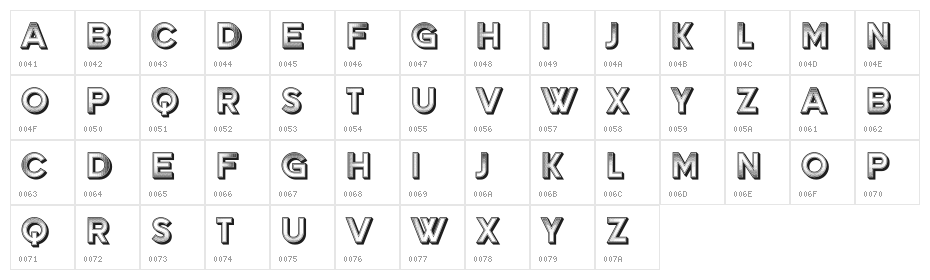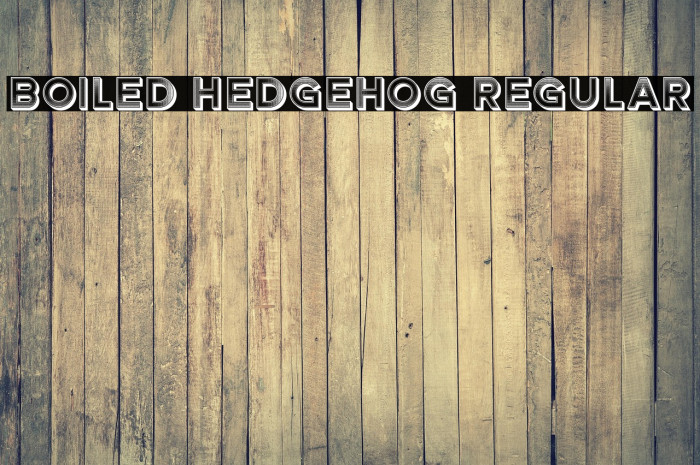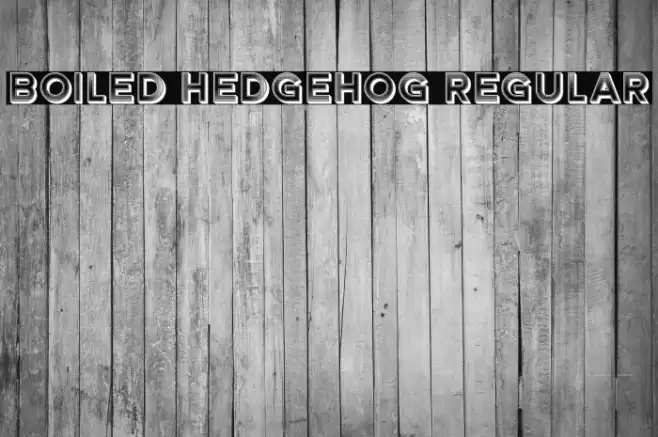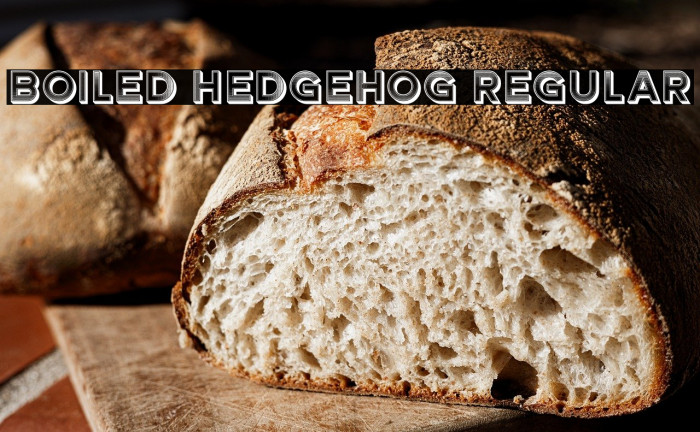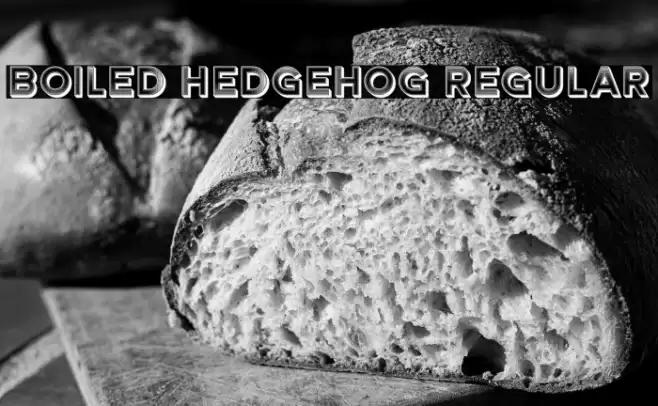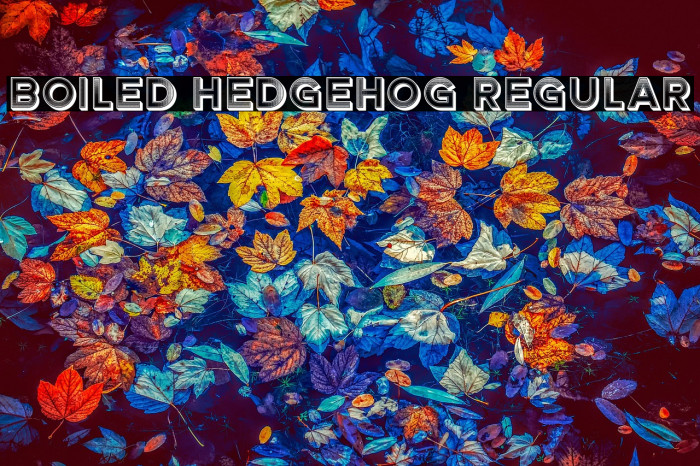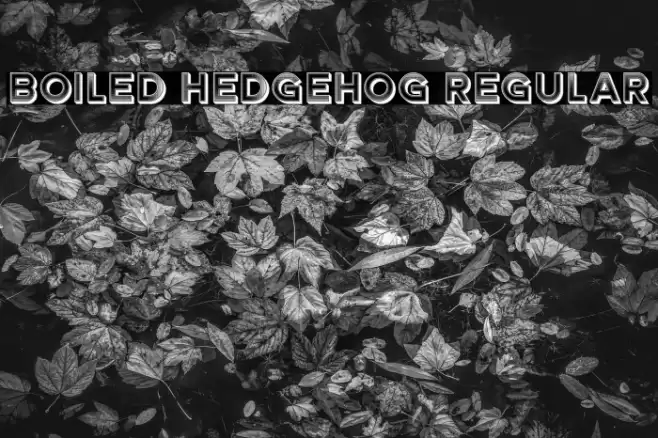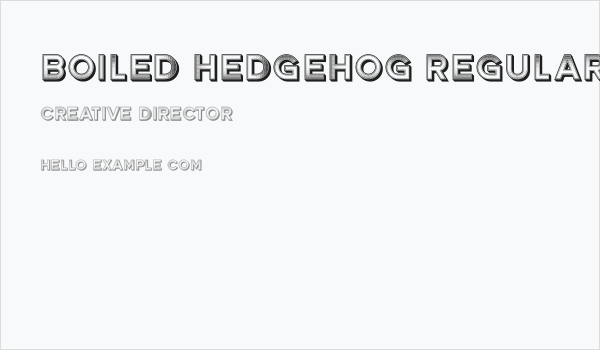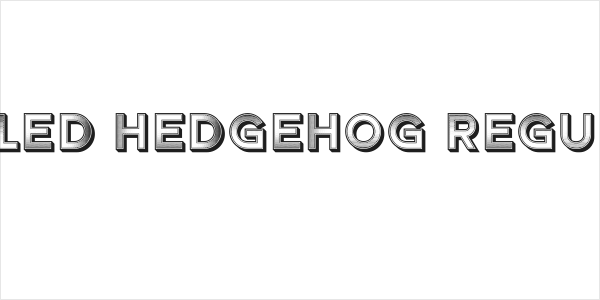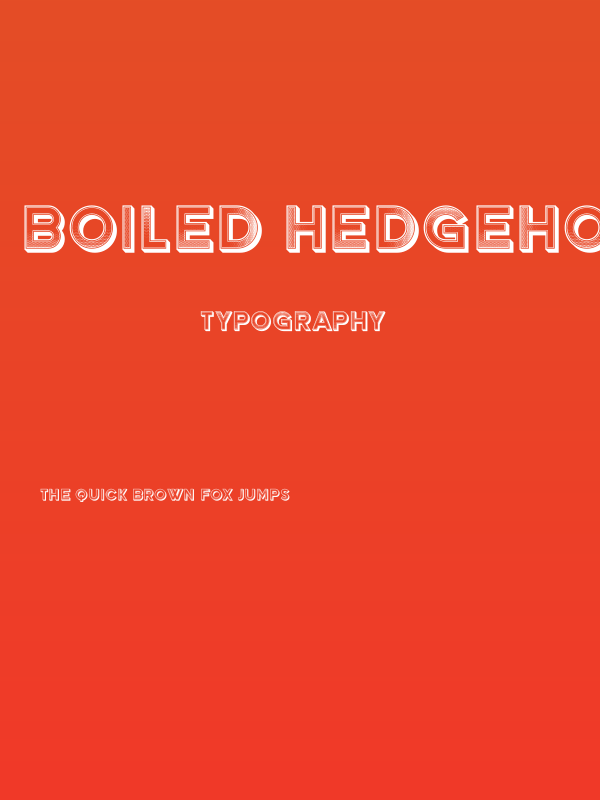
Boiled Hedgehog Regular Font
Boiled Hedgehog Regular Description
This font features a bold, decorative style with a three-dimensional effect created by a shadowed outline. The characters are uppercase and exhibit a strong geometric structure, giving them a modern and impactful appearance. The inner detailing adds texture and depth, enhancing the visual interest. The font's design is reminiscent of vintage signage, making it suitable for projects that require a bold statement. Its unique style is both eye-catching and memorable, ideal for creative and artistic applications.
| Proposed Projects | Ideal for posters, logos, branding, and any design requiring a strong visual impact. |